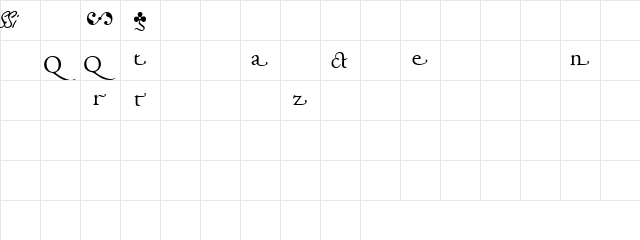
GaramondAlternateSSK Regular
Design Context for GaramondAlternateSSK Typeface
GaramondAlternateSSK takes a measured approach to typography — its balanced proportions and neutral character make it a reliable workhorse for both digital and print work.
Pro Tip: Use GaramondAlternateSSK in both headline and body roles to test its range before committing to a single application.